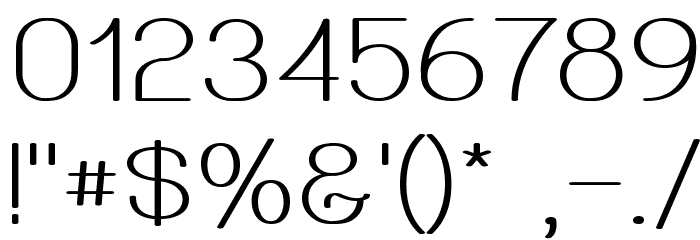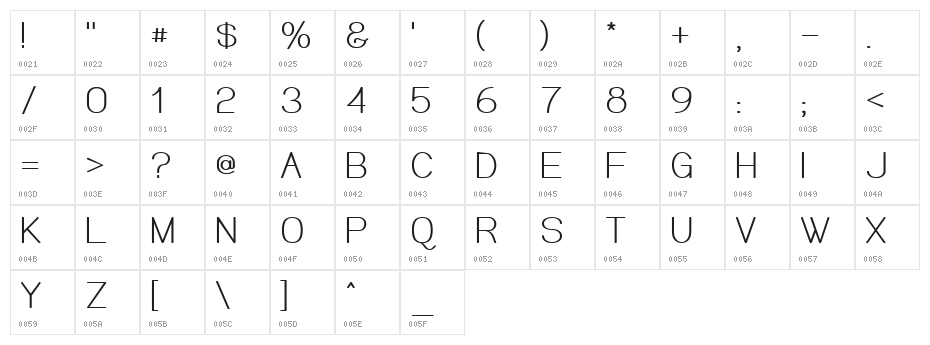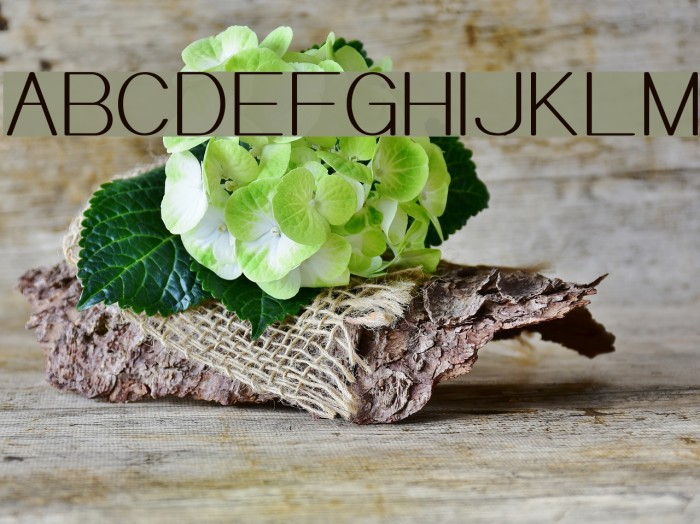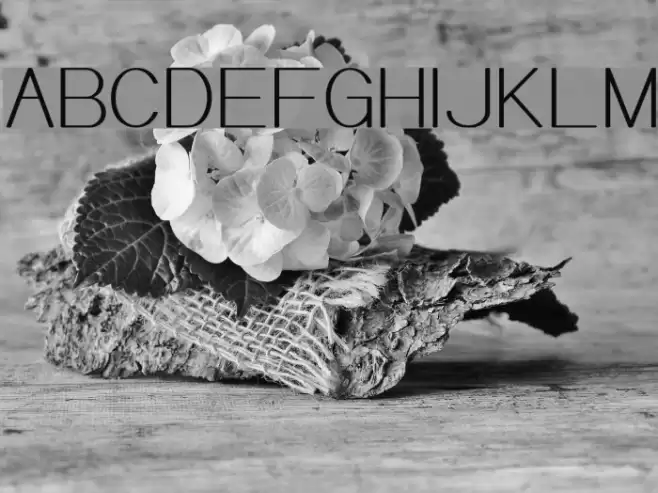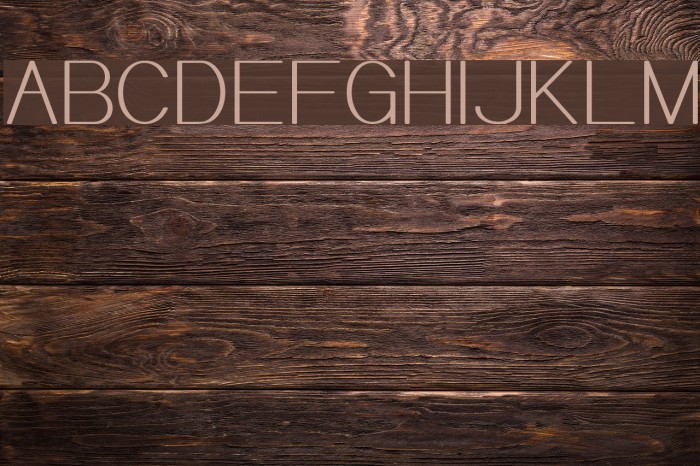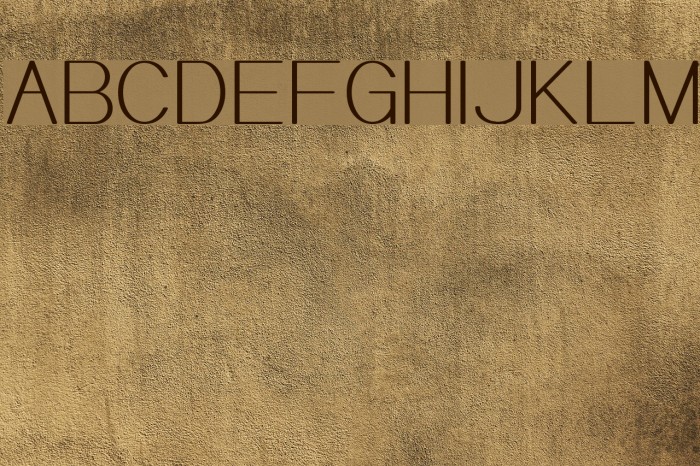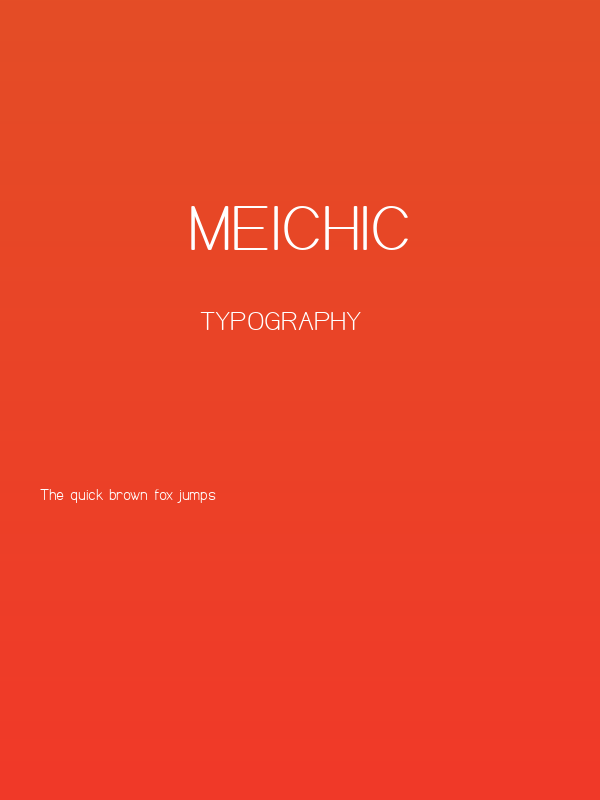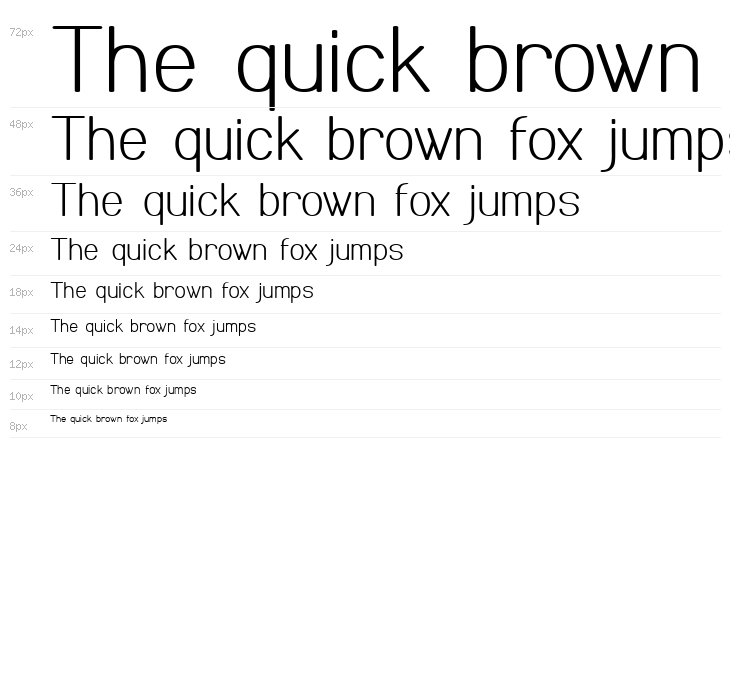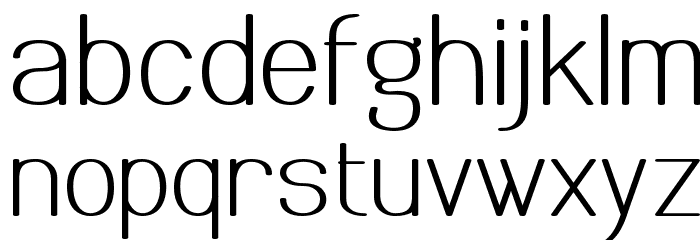
Meichic Font
Meichic Description
This font features a clean and modern sans-serif design with a geometric structure. The characters are evenly spaced, providing a balanced and harmonious appearance. The uppercase letters are tall and slightly condensed, while the lowercase letters maintain a consistent height, contributing to a uniform look. The numerals are proportionate and align well with the overall style, ensuring readability. Special characters are designed with simplicity, enhancing the font's versatility. The font's minimalistic approach makes it suitable for a wide range of applications, from digital interfaces to print media.